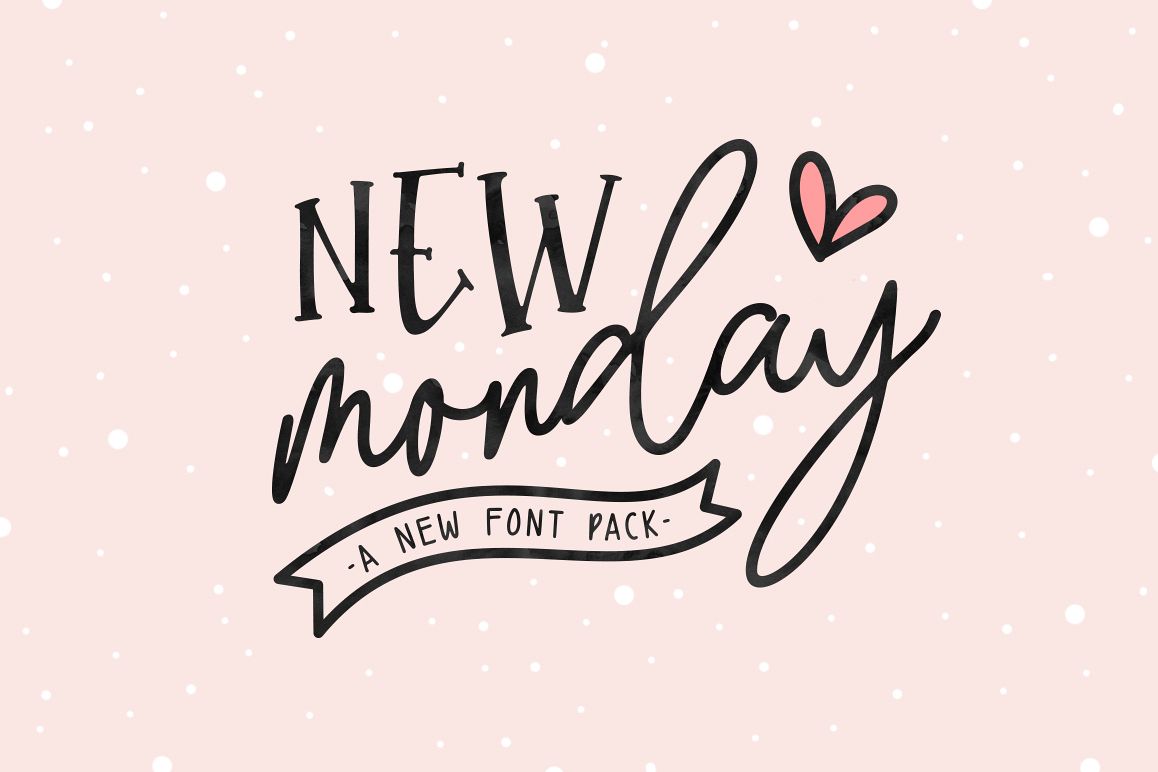
New Monday | Font Pack
New-Sans
New-ScriptOne
New-ScriptTwo
New-Serif
New Monday is a new handwritten font pack from us, this font is really new and fresh. With four different font characters, you can play your imagination in designing. This font is very easy to use and really playful. New Monday perfect for logos, printed quotes, invitations, cards, product packaging and another project design.
• New Monday Sans • This font all caps only, with unique characters.
• New Monday Serif • This fonts have uppercase and lowercase, and if you create a word, you can make like a bouncing effect. Like image #3
• New Monday Script One • This font have two different style, uppercase acts as lowercase. so in this font have two lowercase and its terms can be combined as alternative.
• New Monday Script Two • This fonts have uppercase, lowercase, and alternate characters so you can play around with all of these fonts and create something funny and awesome.